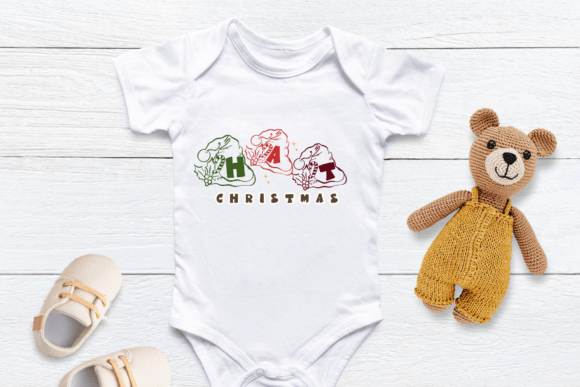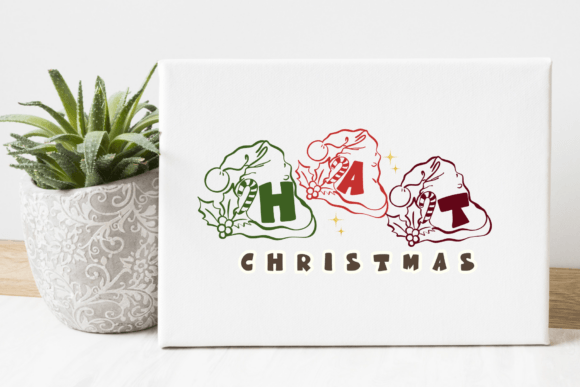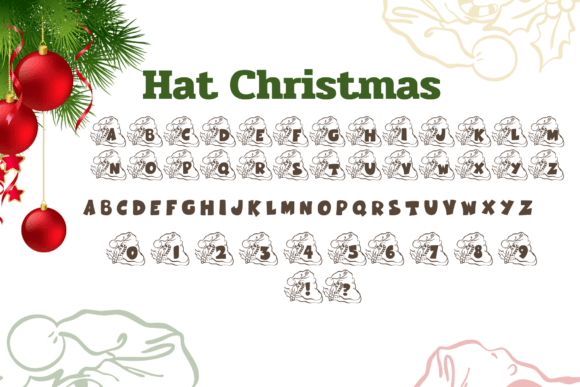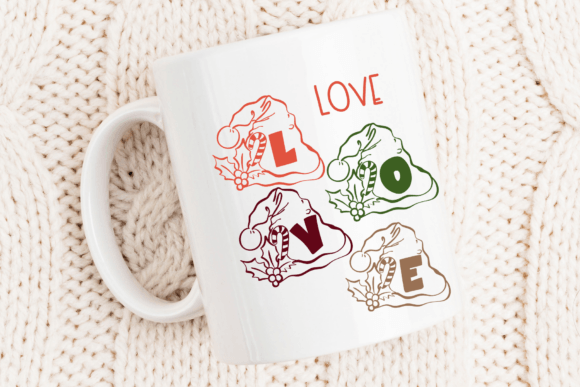
Hat Christmas Font: A Festive Decorative Font for Your Holiday Designs
Are you looking for a fun and playful font to add some holiday cheer to your designs? Look no further than the Hat Christmas font! This decorative font is perfect for a variety of projects, from taking notes and writing diaries to creating greeting cards and festive banners.
What is Hat Christmas Font?
Hat Christmas is a decorative font that is designed to capture the spirit of the holiday season. With its playful and whimsical design, this font is sure to add a touch of festive fun to any project. Whether you’re a designer, crafter, or simply someone who loves to get creative, Hat Christmas font is a great choice for a wide range of applications.
Uses for Hat Christmas Font
One of the best things about Hat Christmas font is its versatility. While it’s perfect for traditional holiday projects like greeting cards and gift tags, it can also be used for a wide range of other designs, including:
- Banners: Create eye-catching banners for your website, social media, or physical displays with Hat Christmas font.
- Content: Add a touch of holiday cheer to your blog posts, articles, or other written content with this festive font.
- Mugs: Design custom mugs for gifts or personal use with Hat Christmas font.
- Cards: Create one-of-a-kind greeting cards for friends and family.
- Shirts: Design custom t-shirts or other apparel with Hat Christmas font.
- Stationery: Add a touch of holiday fun to your stationery, including notebooks, journals, and more.
- Social media posts: Make your social media posts stand out with Hat Christmas font.
Why Choose Hat Christmas Font?
So why choose Hat Christmas font for your holiday designs? Here are just a few reasons:
- Unique and eye-catching: Hat Christmas font is a one-of-a-kind design that’s sure to grab attention.
- Versatile: This font can be used for a wide range of projects, from traditional holiday designs to more modern applications.
- Fun and festive: This font is designed to capture the spirit of the holiday season, making it perfect for designers and crafters who want to add some festive fun to their projects.
Tips for Using Hat Christmas Font
Here are a few tips for getting the most out of Hat Christmas font:
- Experiment with different colors: Hat Christmas font looks great in a variety of colors, so don’t be afraid to experiment and find the perfect hue for your project.
- Pair with other fonts: Try pairing Hat Christmas font with other fonts to create a unique and eye-catching design.
- Use it sparingly: While Hat Christmas font is fun and festive, it can be overwhelming if used too much. Try using it sparingly to add a touch of holiday cheer to your design.
Hat Christmas font is a fun and festive decorative font that’s perfect for a wide range of holiday designs. With its unique and eye-catching design, versatility, and ease of use, this font is a great choice for designers and crafters who want to add some holiday cheer to their projects. Whether you’re creating greeting cards, banners, or social media posts, Hat Christmas font is sure to make your designs stand out.